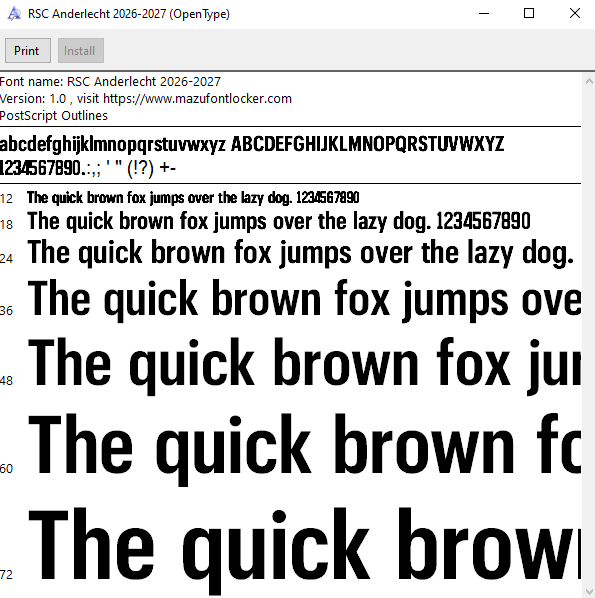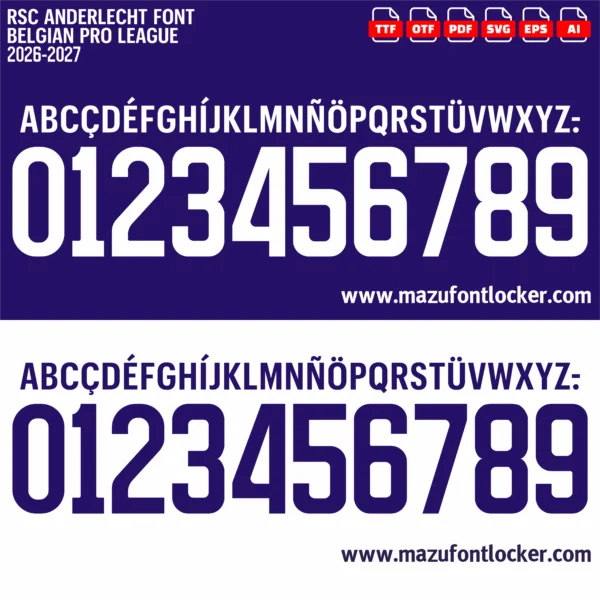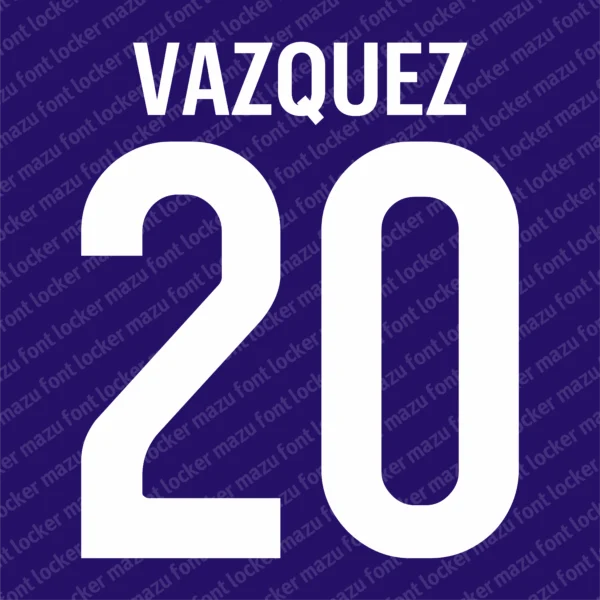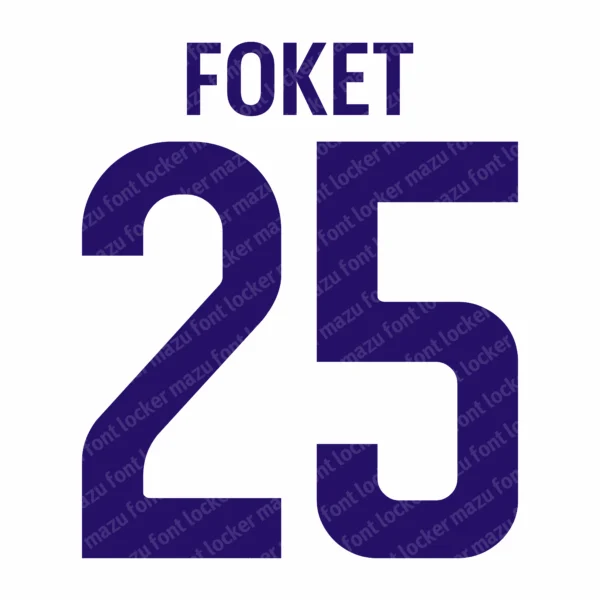
RSC Anderlecht 2026-2027 Font Vector – Stunning Purple & White Masterpiece
This font captures the powerful, precision-crafted lettering inspired by RSC Anderlecht’s iconic purple-and-white identity, proud Brussels heritage, legendary Purple & White tradition, and fearless football spirit — delivering premium authenticity and explosive match-day energy for professional jersey mockups, football graphics, sports branding, fan designs, and high-end creative projects.
RSC Anderlecht 2026-2027 Font Vector – Stunning Purple & White Typeface
The RSC Anderlecht 2026-2027 Font Vector is a premium typeface that accurately recreates the distinctive match lettering associated with RSC Anderlecht during the 2026-2027 football season. This high-quality vector font kit captures the bold, clean, and instantly recognizable typography that perfectly complements the club’s iconic purple and white identity.
Designed for professional designers, football enthusiasts, jersey collectors, and passionate RSC Anderlecht supporters, the RSC Anderlecht 2026-2027 Font Vector delivers exceptional authenticity for creating realistic jersey mockups, football merchandise, social media graphics, match posters, squad designs, and custom fan artwork. Every character has been carefully recreated to reflect the powerful and precise visual style of one of Belgium’s most historic and successful football clubs.
Why Choose RSC Anderlecht 2026-2027 Font Vector
This font stands out thanks to its precise vector construction and authentic club-inspired styling. Every letter and numeral has been meticulously recreated to match the distinctive football lettering aesthetic associated with RSC Anderlecht during the 2026-2027 season and its domestic campaign.
Whether you’re producing professional football kit templates, custom jersey concepts, or eye-catching football content, the RSC Anderlecht 2026-2027 Font Vector delivers a genuine match-ready appearance inspired by the identity of Les Mauves.
The lettering featured in the RSC Anderlecht 2026-2027 Font Vector combines clean geometric lines with bold modern proportions. The result is a premium and highly readable typeface that reflects RSC Anderlecht’s proud football heritage, iconic purple and white colors, Brussels identity, and passionate fanbase.
• Complete uppercase A–Z alphabet and numbers 0–9 in authentic RSC Anderlecht 2026-2027 inspired style
The RSC Anderlecht 2026-2027 Font Vector is inspired by the distinctive football typography and visual identity associated with this campaign, making it an excellent choice for designers creating custom jersey concepts, football posters, squad graphics, matchday artwork, and fan-made projects.
The RSC Anderlecht 2026-2027 Font Vector is an independently designed typeface package inspired by the official shirt lettering and visual identity associated with RSC Anderlecht during the 2026-2027 football season. It has been carefully recreated for football enthusiasts, graphic designers, collectors, jersey creators, and fans producing custom football concepts, digital artwork, and fan-made projects. Please note that this is a fan-made design resource and is not an official product of RSC Anderlecht, the Belgian Pro League, UEFA, or any associated organization.